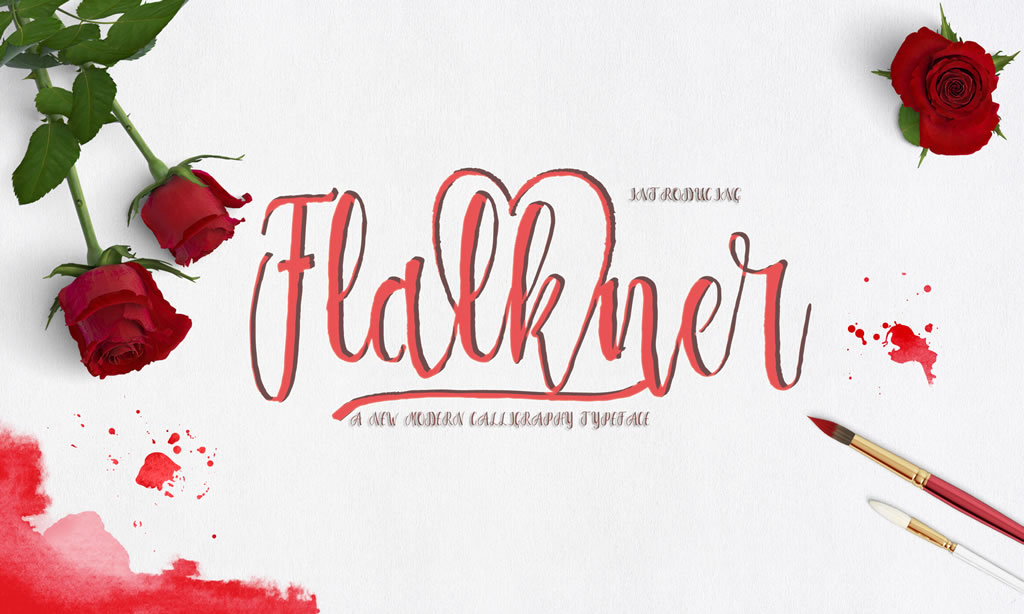
**Introducing Flalkner Font: The Epitome of Elegance and Creativity**
Unleash your creative potential and let your words dance with an alluring grace, courtesy of Flalkner Font. This captivating script font, masterfully crafted by Creative Drsign, is your gateway to a world of elegance and allure.
At the heart of Flalkner Font lies its alluring charm, a symphony of sweeping strokes and enchanting curves that evoke a sense of timeless beauty. This exquisite font transforms your words into works of art, each letter flowing seamlessly into the next with an effortless grace that will captivate your audience.
But Flalkner Font is more than just a pretty face. Its versatility knows no bounds, effortlessly adapting to a myriad of creative endeavors. Whether you're crafting captivating social media posts, designing eye-catching marketing materials, or adding a touch of sophistication to your personal projects, Flalkner Font will elevate your creations to new heights.
Step into the realm of limitless creativity, where your imagination can soar and your words can dance. Flalkner Font is your perfect companion, ready to adorn your creations with its timeless elegance and undeniable charm.
Don't settle for ordinary fonts that fade into the background. Embrace the extraordinary with Flalkner Font. Let your words shine brighter than ever before, captivating your audience and leaving an unforgettable impression.
**Why Choose Flalkner Font?**
* **Unleash Your Creativity:** Flalkner Font empowers you to express your unique style and bring your creative visions to life.
* **Timeless Elegance:** Its graceful curves and impeccable flow create a captivating aesthetic that will stand the test of time.
* **Endless Versatility:** From social media to marketing materials and personal projects, Flalkner Font effortlessly adapts to your every need.
* **Captivating Appeal:** Its alluring charm will enchant your audience, leaving them mesmerized by your words.
* **Unleash Your Potential:** With Flalkner Font, you'll discover a new level of creative expression and leave a lasting impression with every word you write.
**Experience the Magic of Flalkner Font Today**